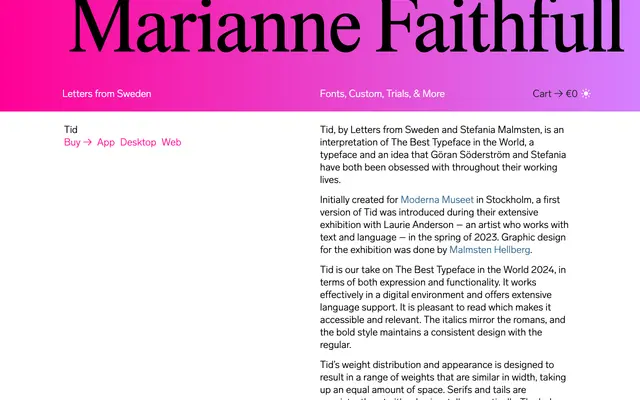
Tid
Letters from Sweden · Göran Söderström, Stefania Malmsten, Laurette Colmard · 2024
Tid specimen from Letters from Sweden
A text and display serif by Göran Söderström and Stefania Malmsten, first cut for a Laurie Anderson exhibition at Moderna Museet in Stockholm in 2023.
Designed by Göran Söderström and Stefania Malmsten as an interpretation of what they call The Best Typeface in the World, Tid is available in ten text styles and four display cuts. Serifs and tails are cut consistently either horizontally or vertically, weights are designed to occupy similar widths, and the italics closely mirror the romans. Extensive Latin character support and careful optical sizing make it suited to both editorial and institutional use.
Tid is a text and display serif with horizontally and vertically cut serifs, harmonious cap-to-lowercase balance, and mirrored italics — characteristics consistent with a refined transitional or classical serif tradition.